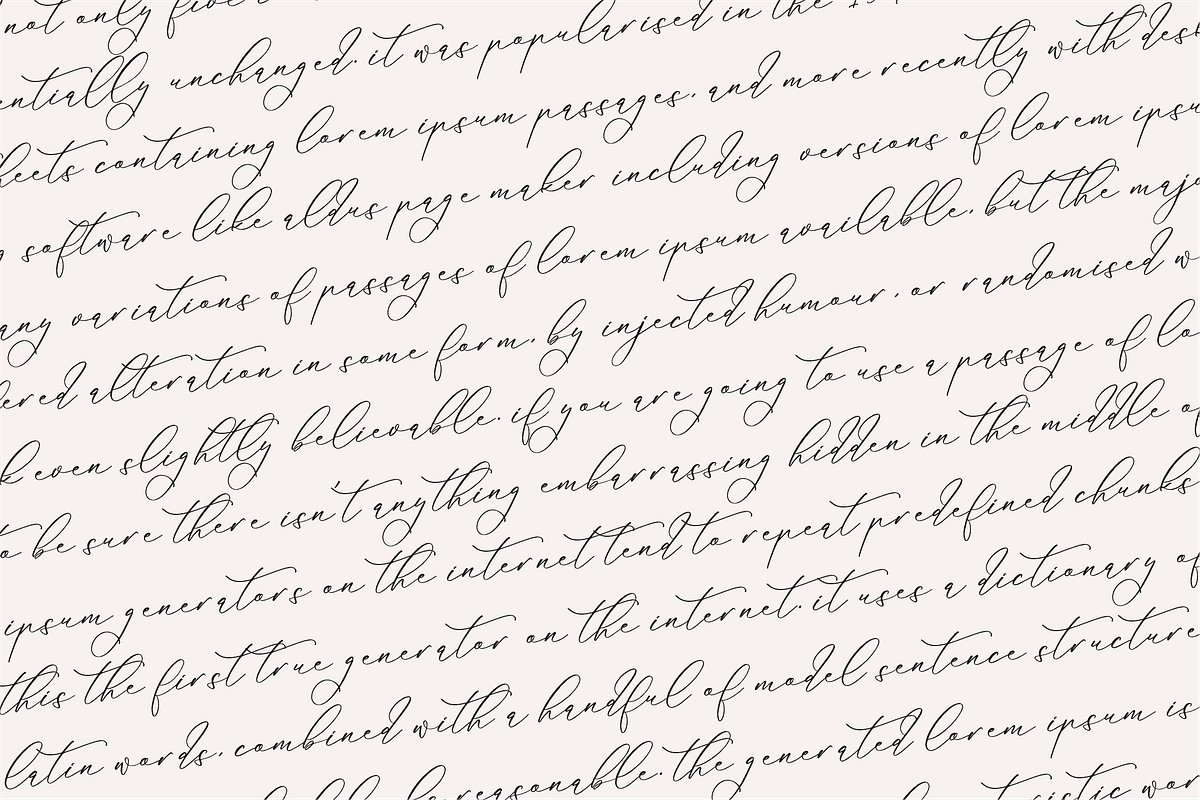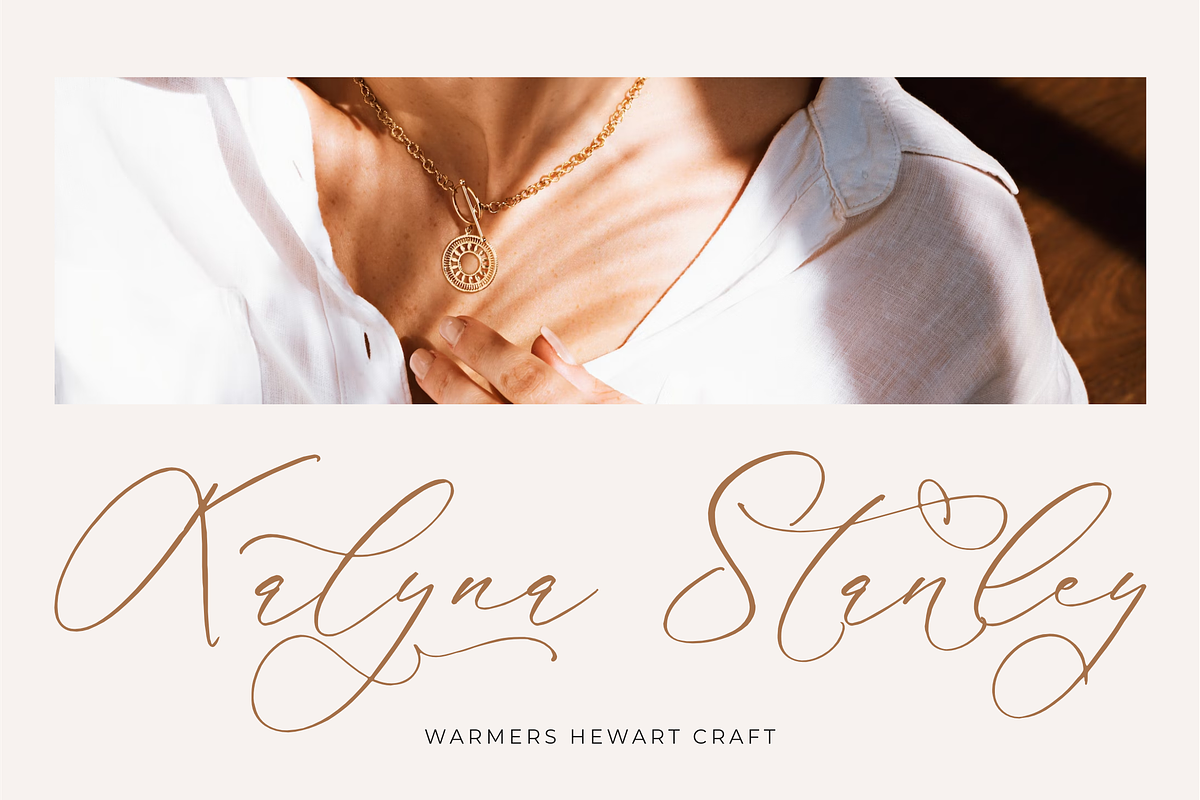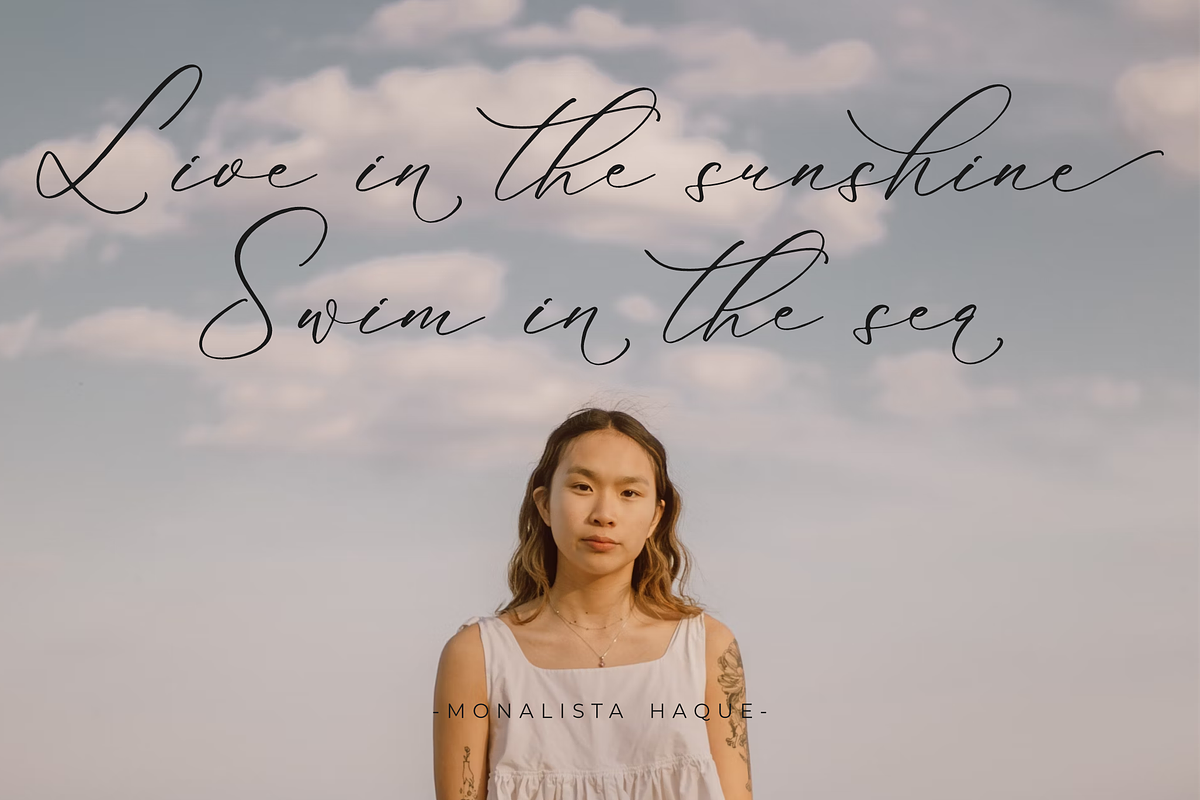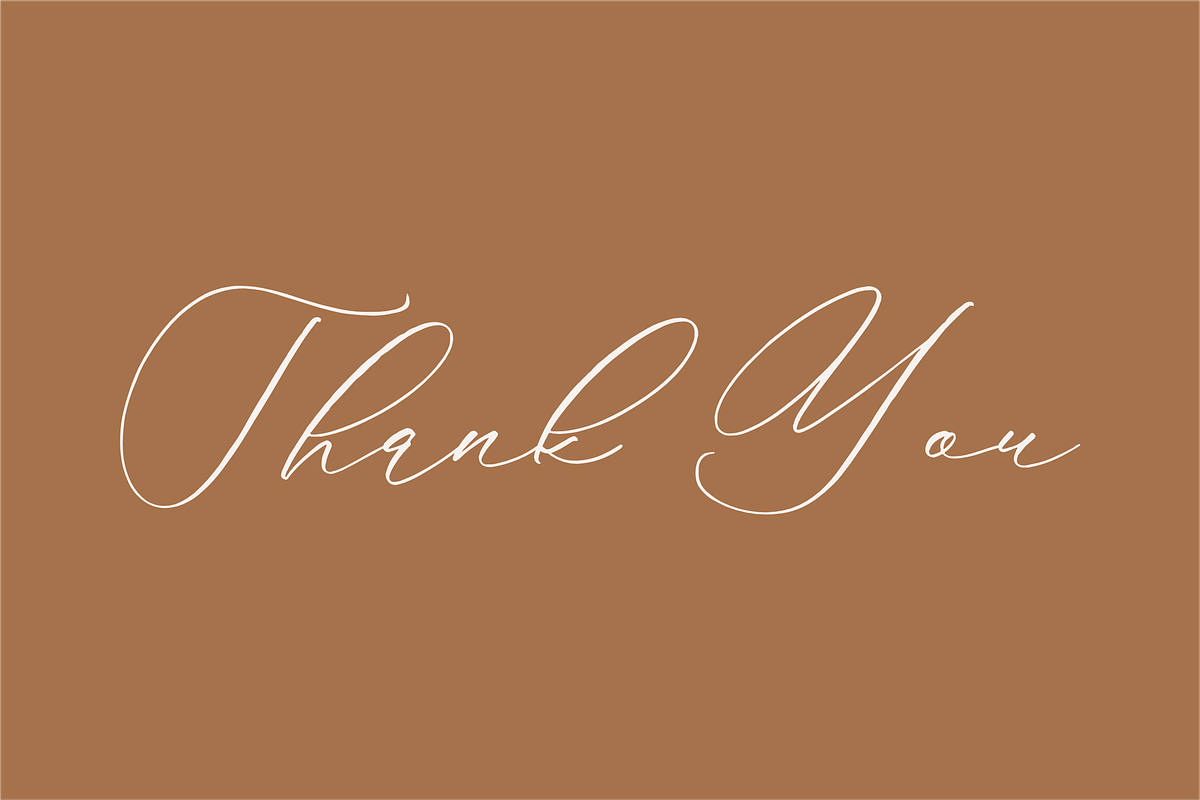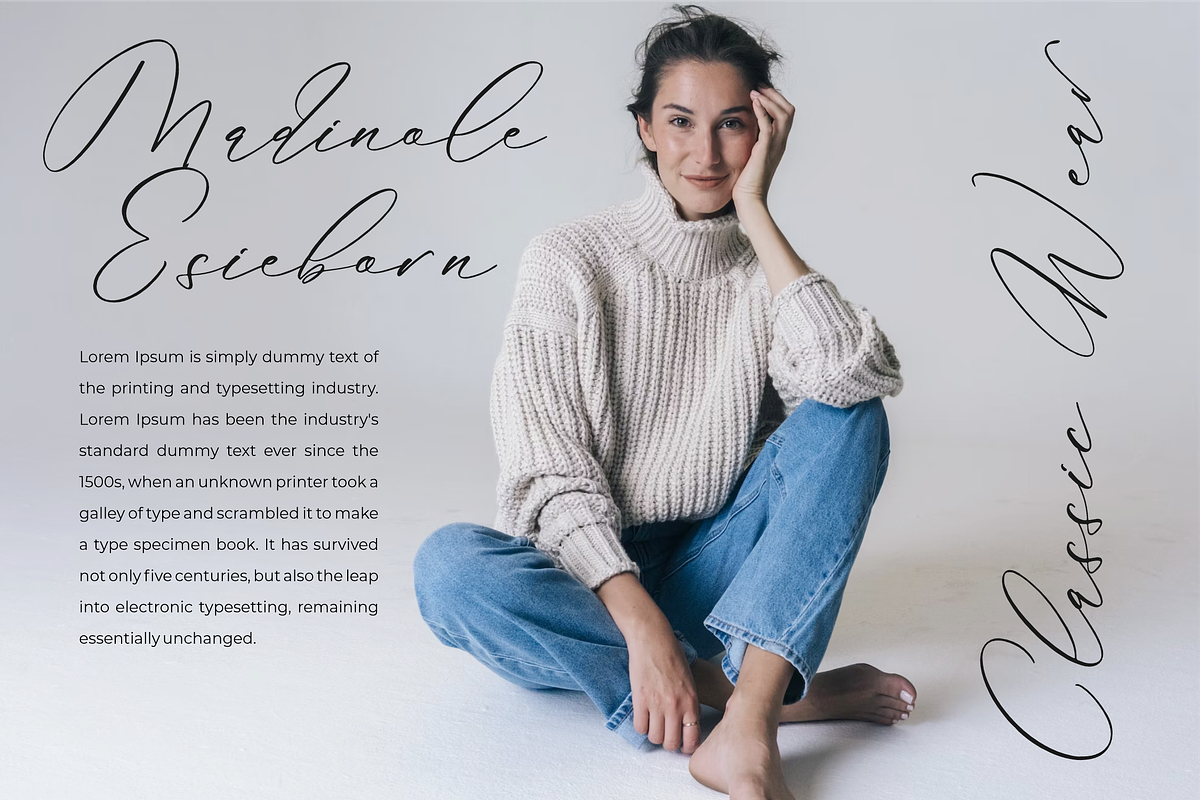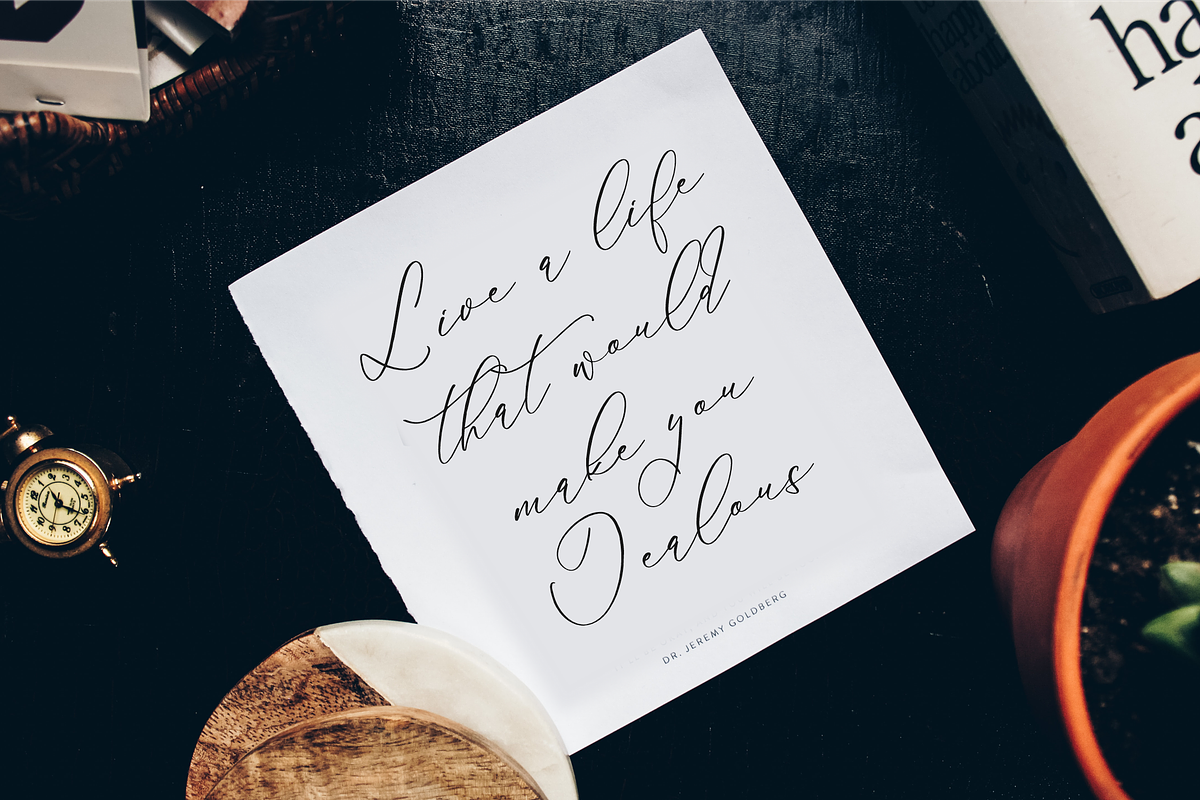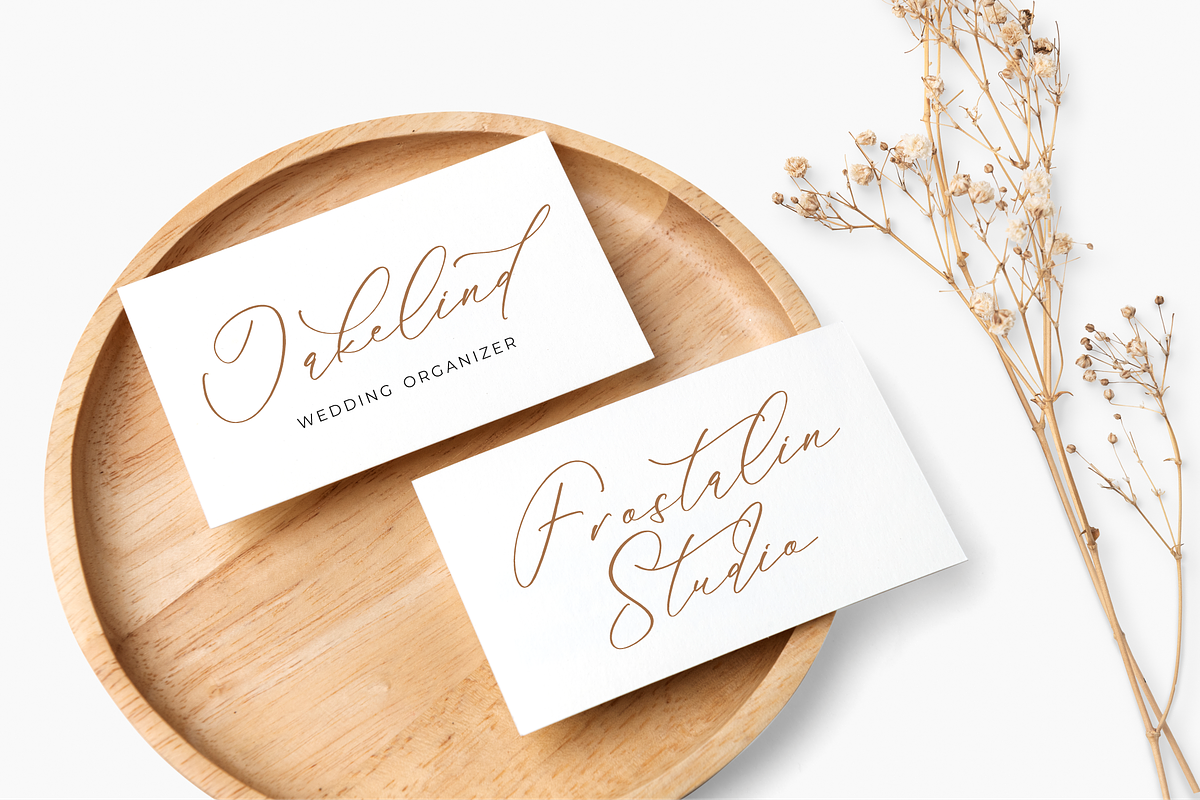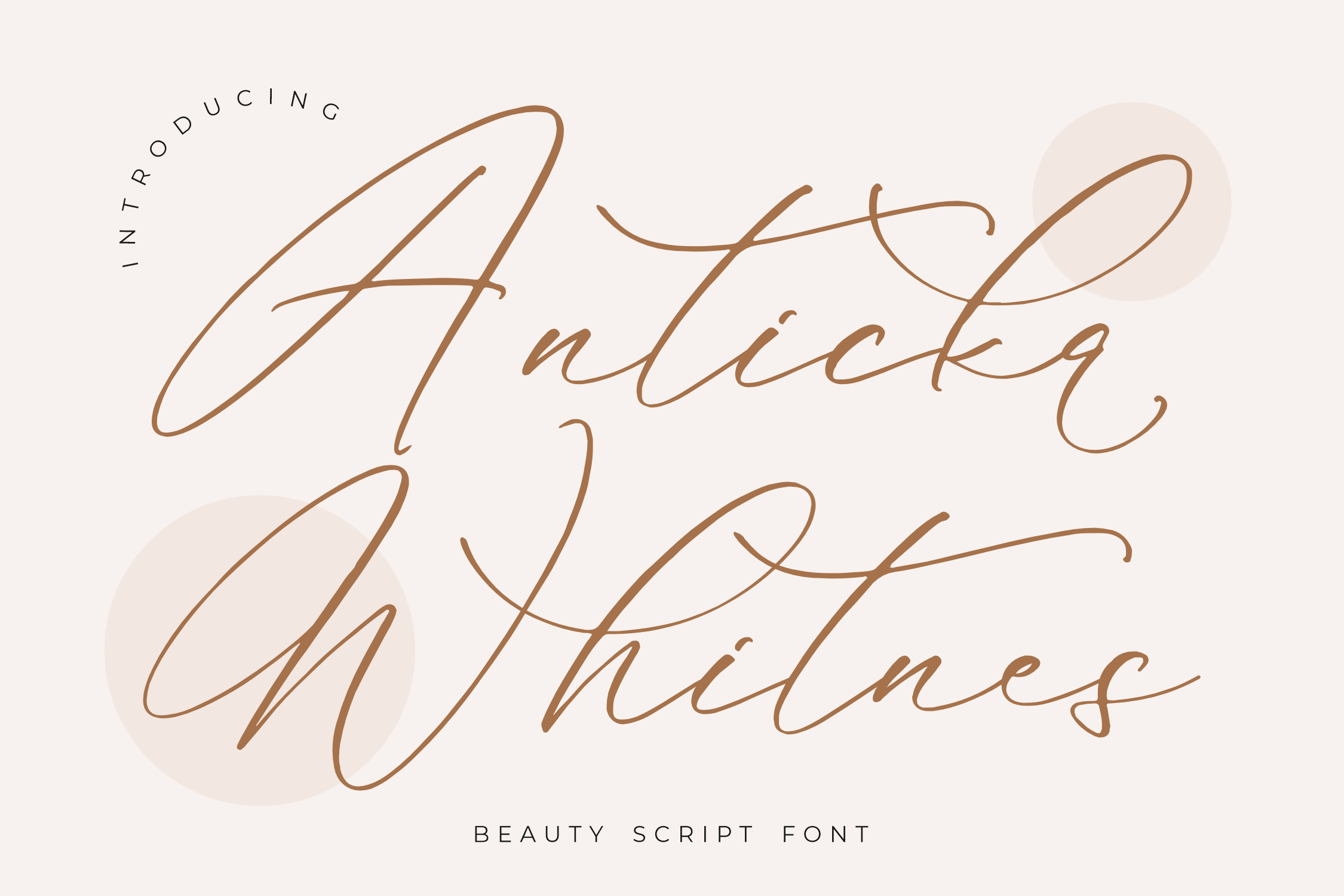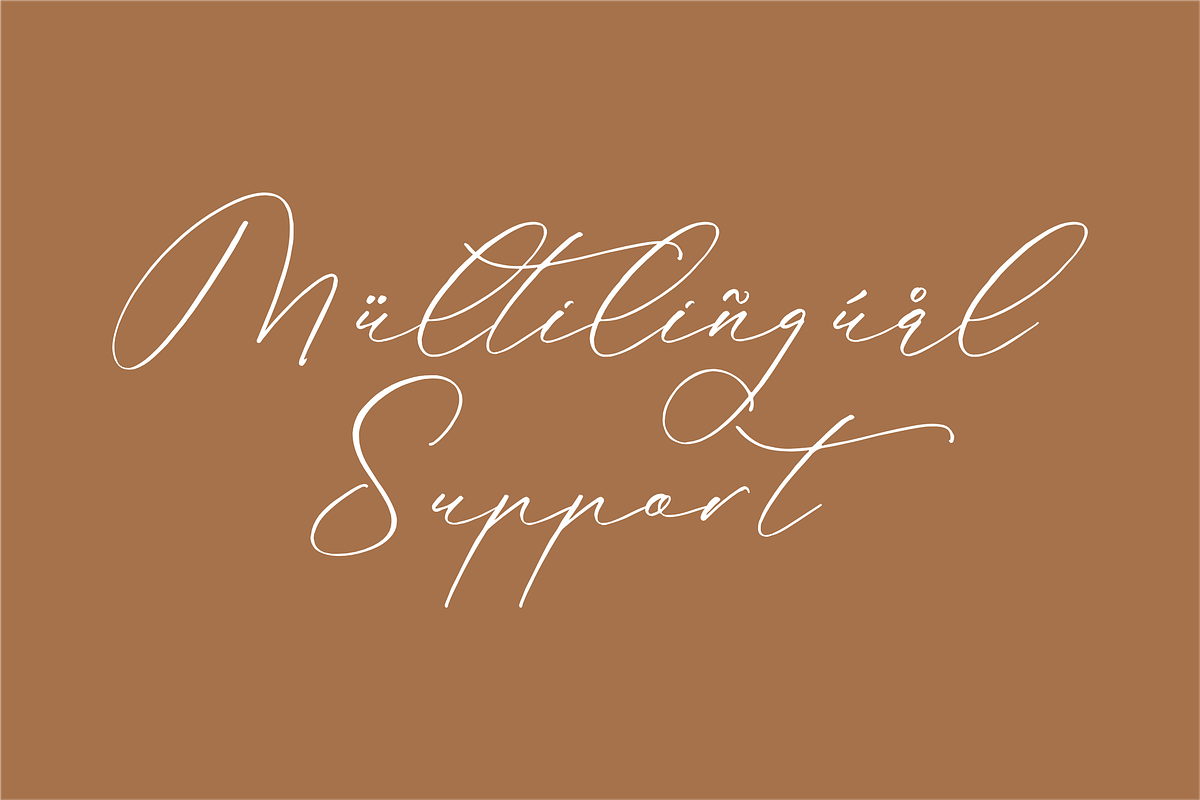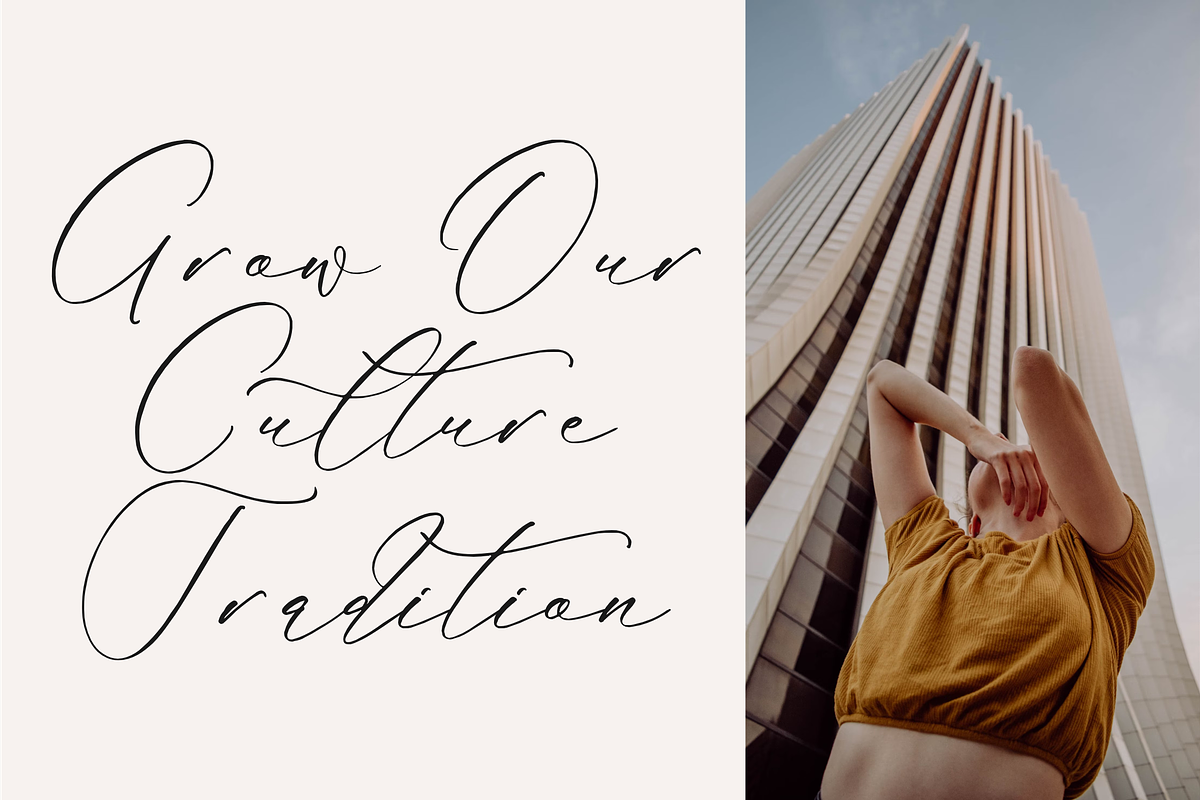
Anticka Whitnes Beauty Script Font
Proudly present Anticka Whitnes - Beauty Script Font , created by Storytype, A luxury script that has own unique style & modern look. This typeface is perfect for an elegant & luxury logo, book or movie title design, fashion brand, magazine, clothes, lettering, quotes, and so much more.